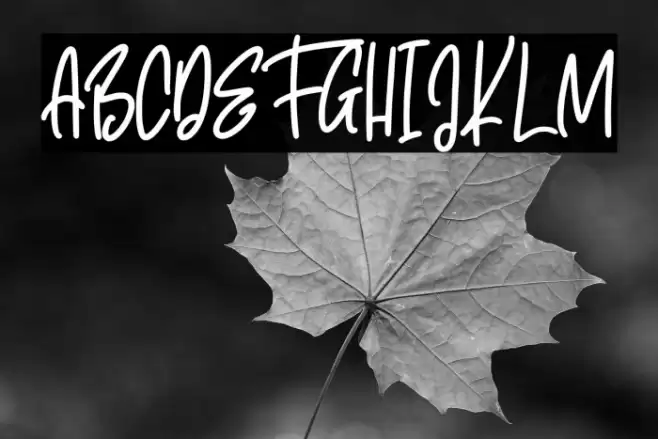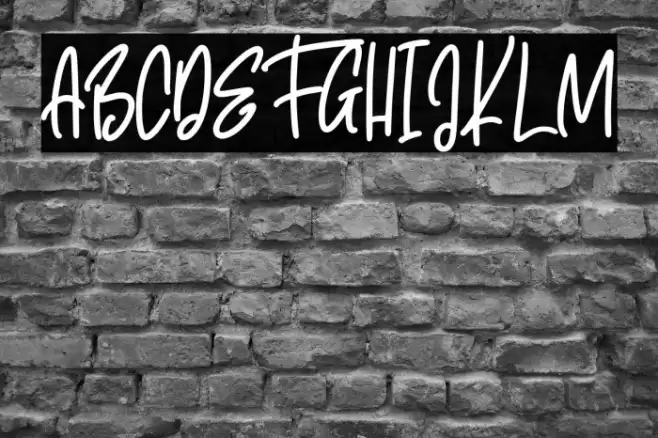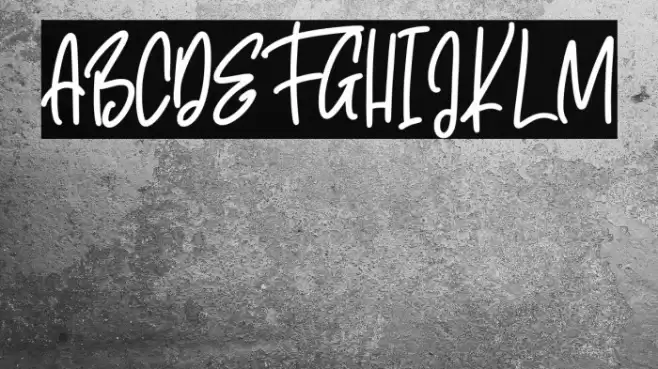
Hermosillo Font
Hermosillo Description
This font exudes a casual, handwritten charm with its flowing script style. The letters are connected in a fluid manner, giving it an organic and personal touch. The uppercase letters stand tall and slightly slanted, while the lowercase letters maintain a consistent baseline, enhancing readability. The strokes vary in thickness, providing a dynamic and lively appearance. This font is perfect for projects that require a personal or artistic touch, such as invitations, greeting cards, or branding materials. Its playful yet elegant style makes it versatile for various creative applications.
A casual, handwritten script font with fluid, connected letters and dynamic strokes from Uncategorized fonts.
- Font: Hermosillo
- Proposed Projects: Ideal for invitations, greeting cards, branding, and artistic projects.
- Overall Style: Casual, Artistic
- Use Case: Logos, Invitations, Artistic projects